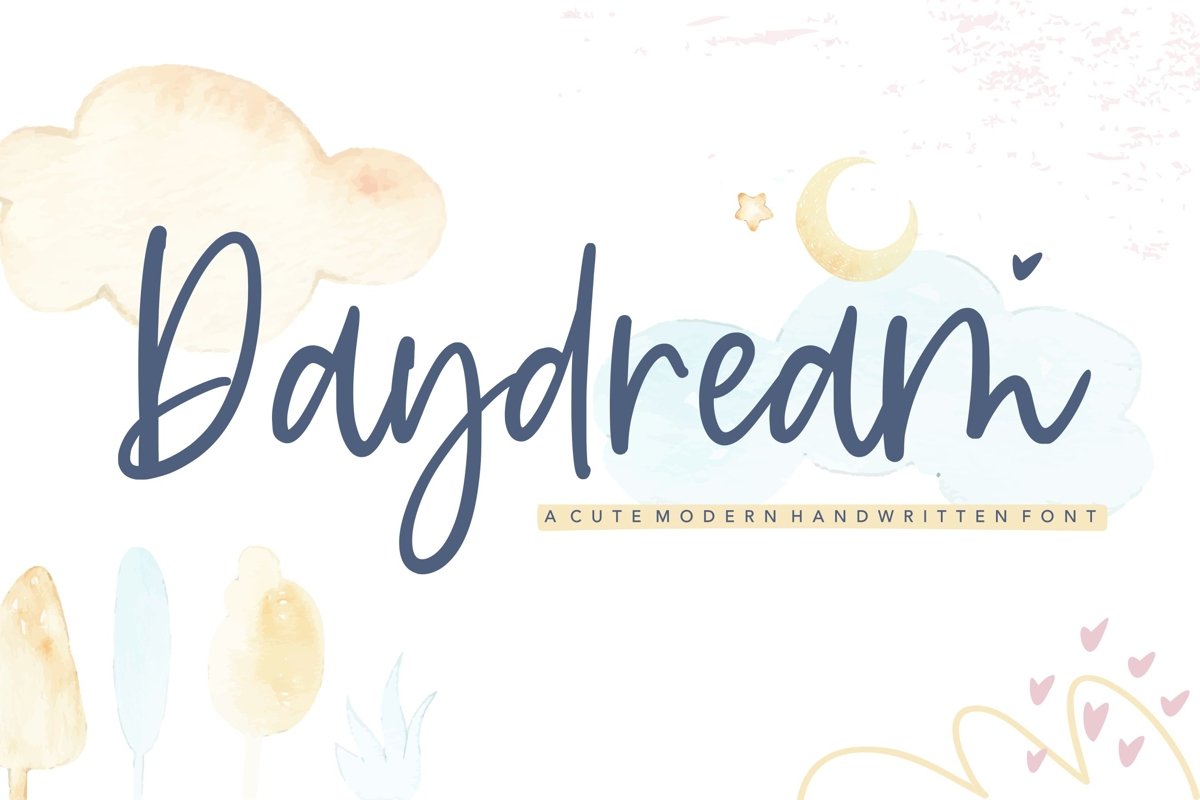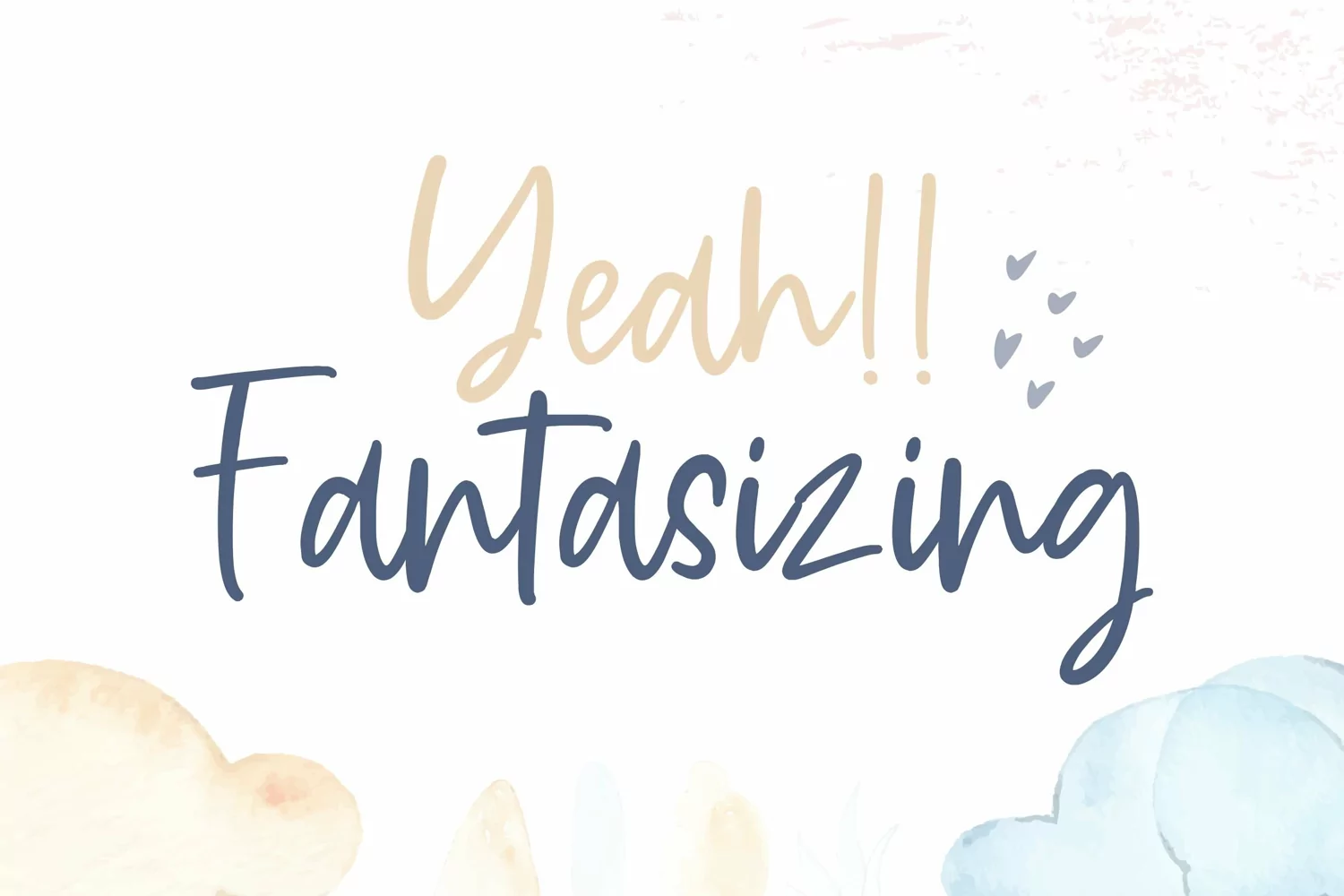
Proudly Present, Daydream Font.
Daydream is a Cute Modern Handwritten font.
Daydream is perfect for product packaging, branding project, megazine, social media, wedding, or just used to express words above the background.